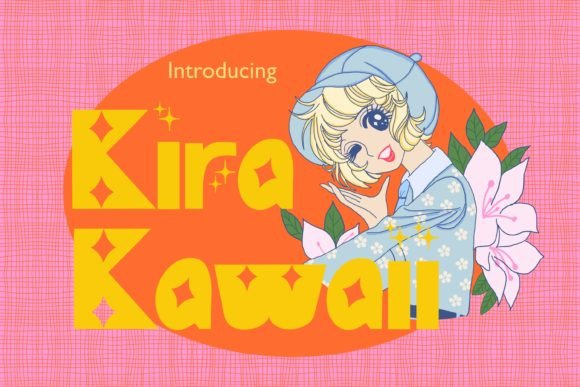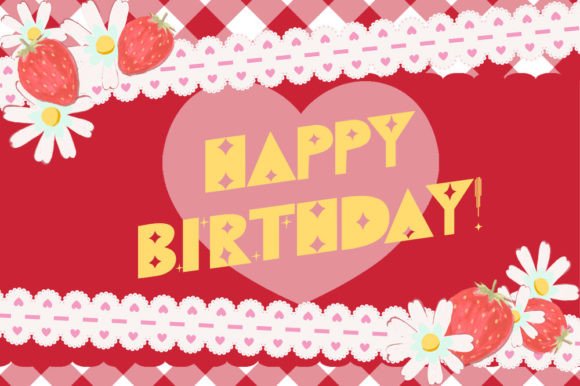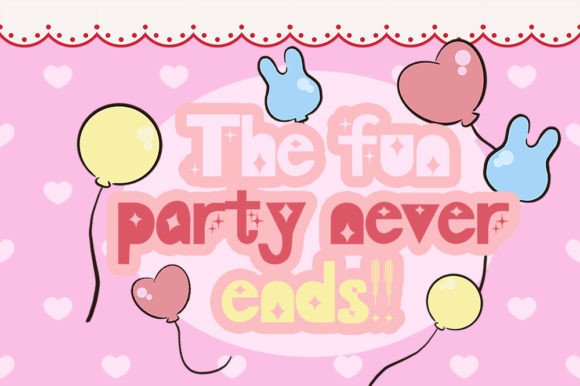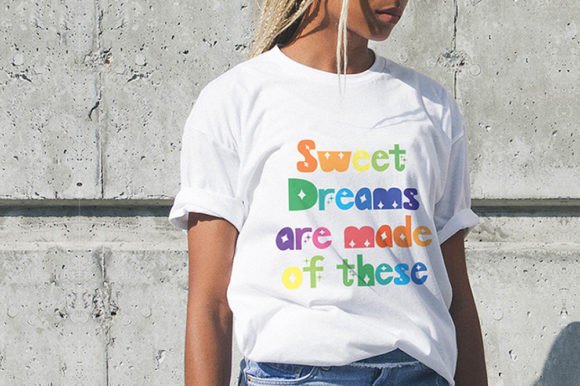
Kira Kawaii Font
Kira Kawaii is a quirky and adorable font adorned with sparkles. Kira means sparkling and kawaii means cute in Japanese, inspired by the sparkles in the eyes of vintage manga female protagonists. This fun typeface is suitable for invitations, posters, digital planners, t-shirts, and much more. Have fun!